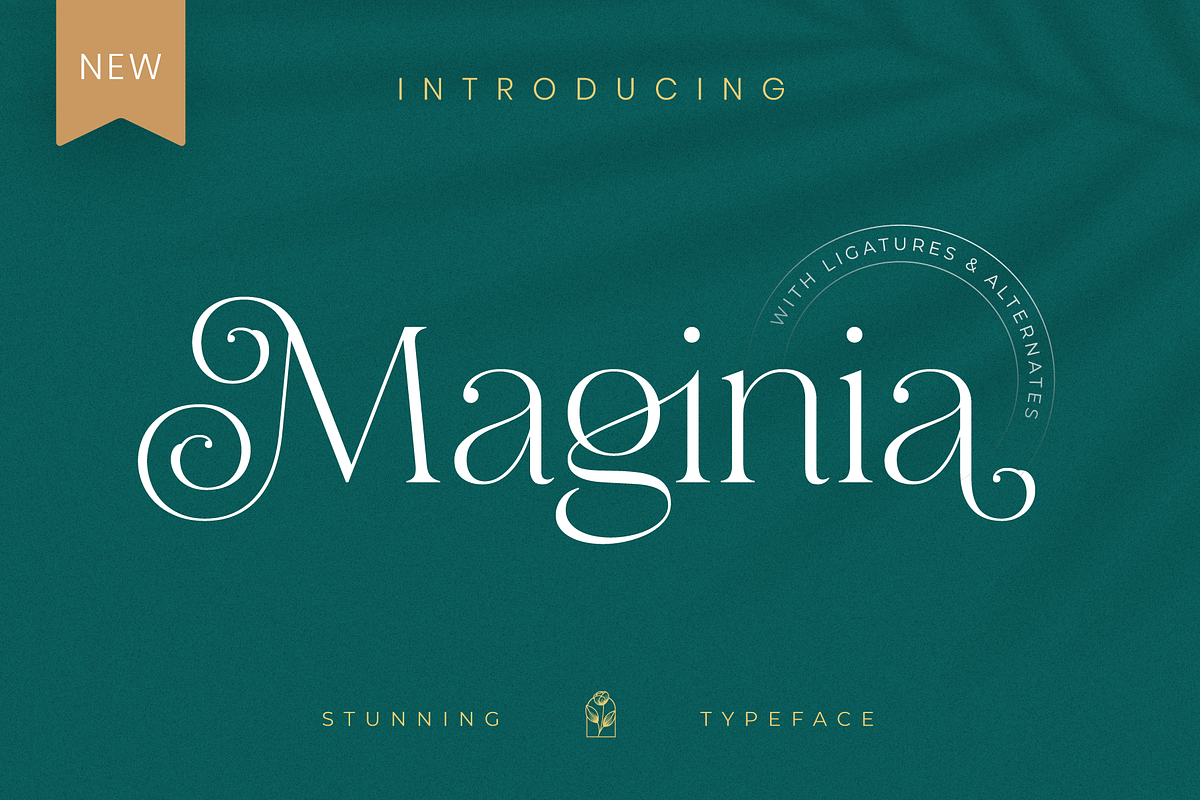
Maginia Font Free Download
Maginia Font Free Download is a sophisticated and elegant typeface designed to bring a touch of class and style to your designs. With its smooth, flowing curves and refined letterforms, this font is perfect for creating logos, branding materials, invitations, social media content, and more. Its timeless design ensures it works well for both professional and creative projects, offering a high-end, luxurious feel. Whether you're designing for a luxury brand, a chic event, or a high-fashion campaign, Maginia Font Free Download allows you to explore its refined style in personal projects before purchasing a commercial license. Add elegance and modern sophistication to your designs with this beautifully crafted font.